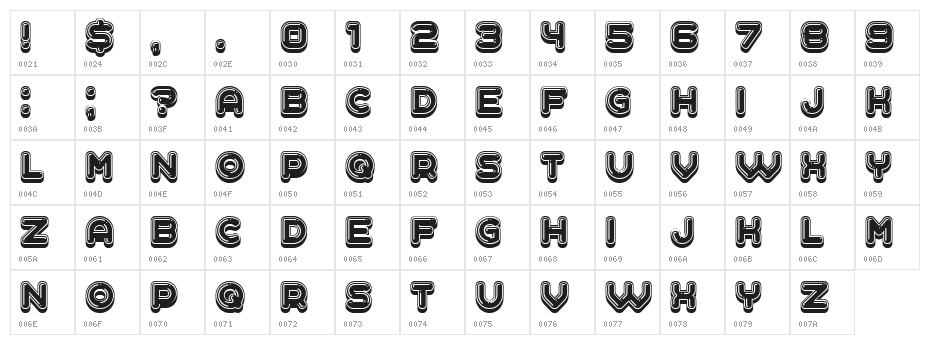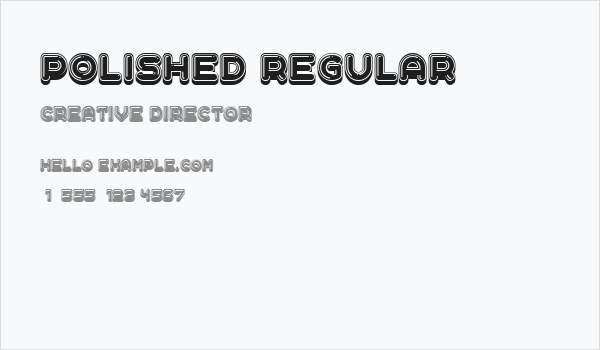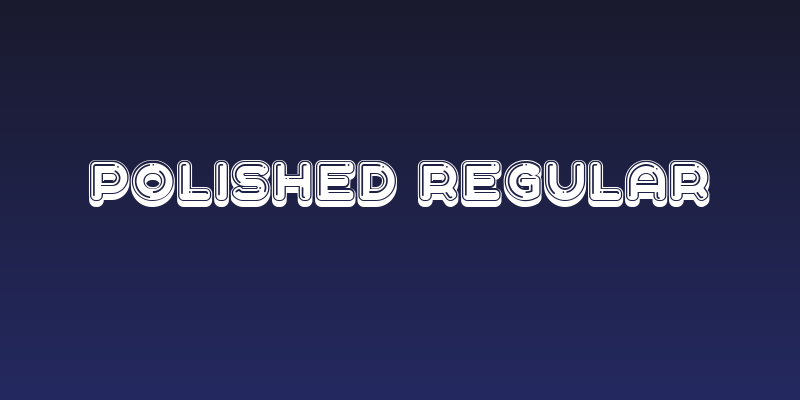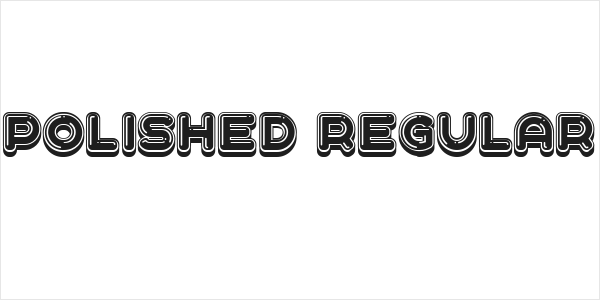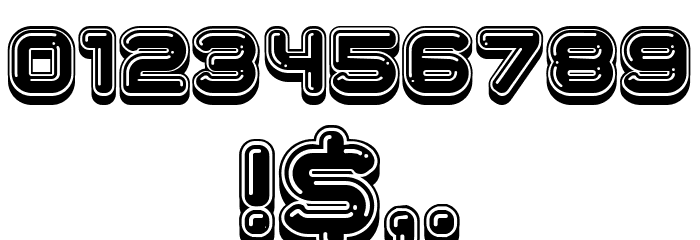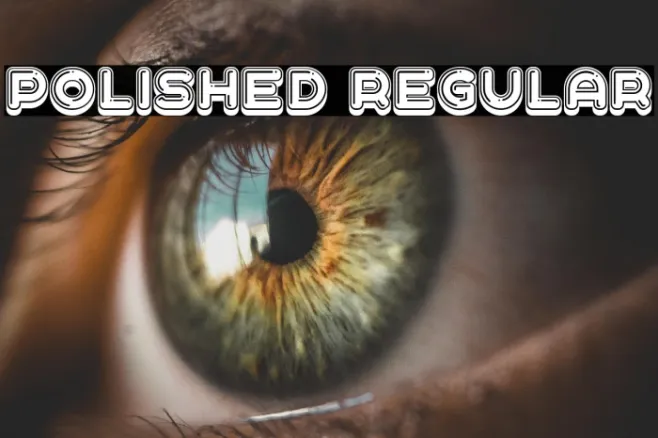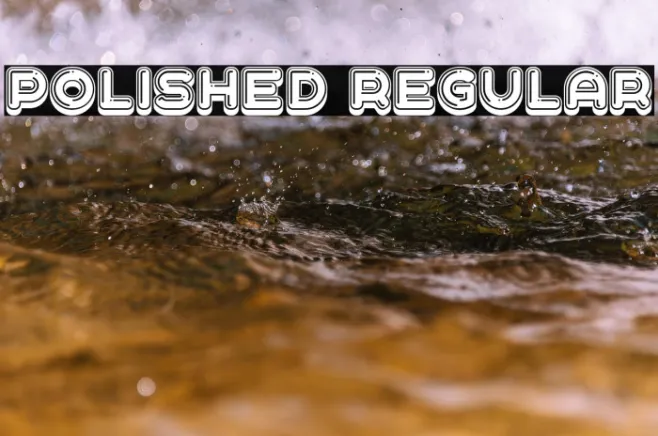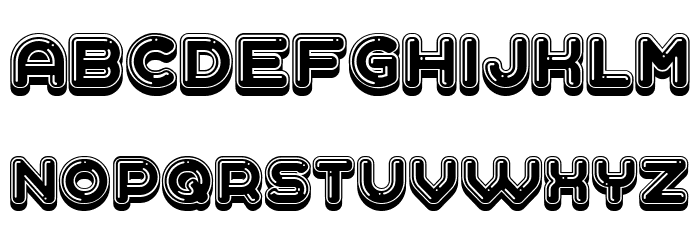
Polished Regular Font
Polished Regular Description
This font features a bold, decorative style with a three-dimensional effect created by a double outline. The characters are uppercase and numerals, with a playful and eye-catching design. The font has a modern and dynamic appearance, making it suitable for attention-grabbing headlines or titles. The spacing between characters is normal, allowing for clear readability despite the intricate design. The contrast in stroke thickness is medium, providing a balanced look that is both impactful and legible. This font's unique style makes it ideal for creative projects that require a bold statement.
| Proposed Projects | Ideal for posters, logos, headlines, and any design needing a bold, eye-catching font. |